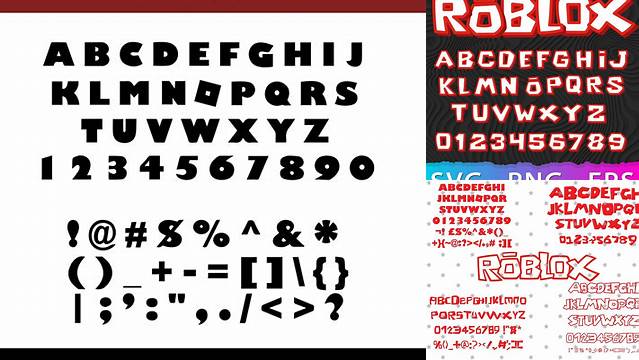
Cool Fonts For Roblox: Level Up Your Game's Style!
Hey guys! Ever wanted to make your Roblox game or profile stand out? Well, one of the easiest ways to do that is by using cool fonts. This guide is all about fonts Roblox, and how you can use them to spice up your game, your profile, and even your chat messages. We're going to dive deep into the world of Roblox fonts, exploring different styles, how to use them, and where to find the best ones. So, buckle up, because by the end of this, you'll be a font expert! Let's get started. We'll explore everything from the basic text styles to more advanced techniques. Get ready to transform your Roblox experience with some awesome typography. It's time to make your mark in the Roblox universe. Choosing the right fonts can significantly impact your game's atmosphere and the way other players perceive your game. A well-chosen font can make your game feel more professional, engaging, and unique. We will cover a wide range of font types, and how they can be used to improve the overall player experience, like creating titles, descriptions, and in-game UI. Let's make your game pop. We are going to explore a variety of fonts. Let's get started!
1. Understanding the Basics: What are Roblox Fonts?
So, what exactly are Roblox fonts? In simple terms, they're the different styles of text you can use within the Roblox platform. They control how the letters, numbers, and symbols appear on your screen. The selection of fonts Roblox offers is pretty diverse, ranging from classic and simple styles to more creative and fancy ones. These fonts are used everywhere: from the game's user interface, the chat box, to the names of items and places. Understanding these basics is the first step toward creating an awesome experience for your players. It helps make your games and profiles look more personalized. Fonts are crucial for communication, branding, and setting the overall tone of your game or profile. Roblox has made it relatively easy to implement different font styles. You can apply them in various ways, giving you a lot of freedom to customize and brand your game. Whether you are aiming for a playful, serious, or futuristic vibe, the choice of font matters. Choosing the right font helps convey the right message. The fonts contribute to a game’s first impression, so it's essential to get it right. It makes a big difference in how people engage with your game. Roblox fonts aren't just about looks. They also enhance readability and user experience. With a good font, your messages are clearer, your game's interface feels more intuitive, and players are more likely to spend time in your creation. It's all about making sure your players have the best possible experience. Using the right font can attract more players. Ultimately, your choice of fonts Roblox impacts your game’s success. It can draw people in and make them want to explore what you've created. So, choosing a good font is important.
2. Built-in Roblox Font Styles: Your Starting Point
Roblox already offers a selection of built-in font styles. These are the default fonts Roblox provides, and they're super easy to use. Some common options include fonts like 'Arial', 'Source Sans Pro', 'Gotham', and 'Fredoka One'. They're all solid choices, and are a great starting point, especially if you're new to customizing fonts. These default fonts are readily available in the Roblox Studio editor. You can apply them to text labels, buttons, and other UI elements. They're designed to work well within the Roblox environment. Using built-in fonts also ensures your text is rendered smoothly across different devices. They're optimized for all the different platforms where people play Roblox. They are an easy way to get started. You can change these fonts in the properties panel of any text element. You can select the font style you want. These basic font styles work perfectly well. They can enhance the appearance of your game. You can pick and change these fonts anytime. They're a good place to begin. Even though these are basic, they provide a solid foundation for your game's appearance. They help you get familiar with how fonts work in Roblox. If you're a beginner, these built-in fonts are a good place to start. They provide a straightforward way to style your game. Don't underestimate the power of these default fonts. They’re functional. They are easy to implement. These default fonts will add some flair to your game.